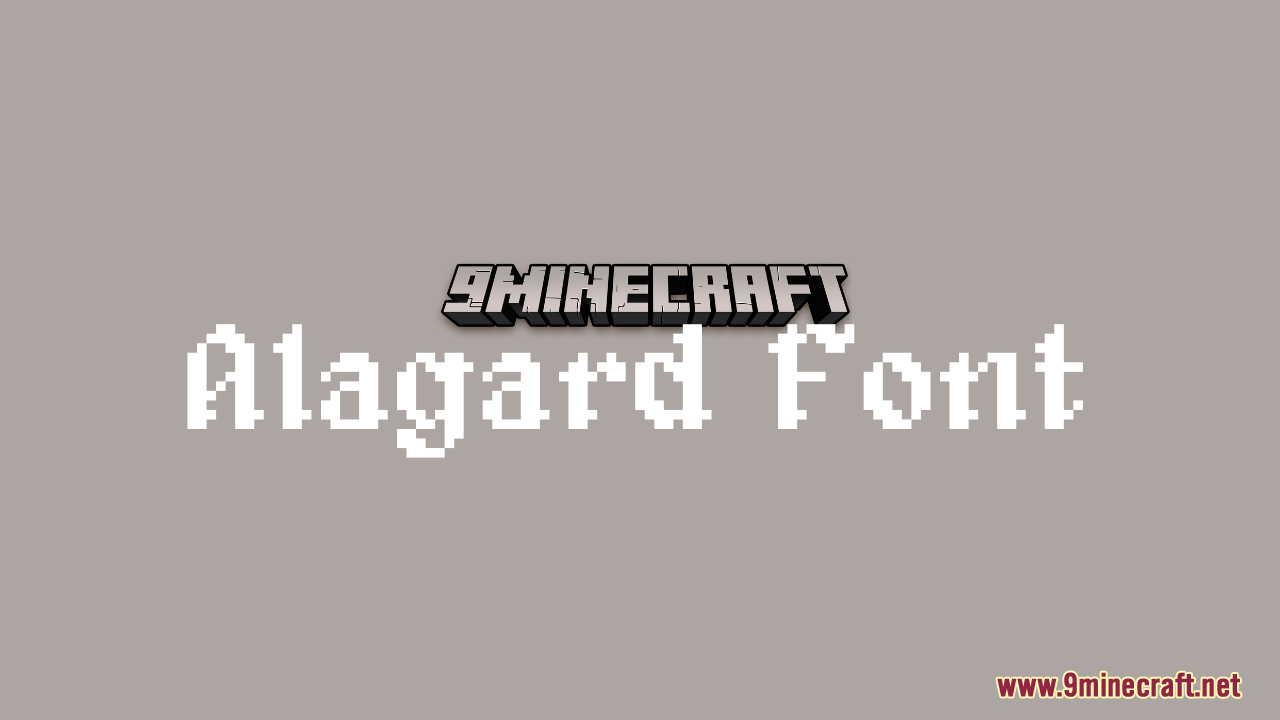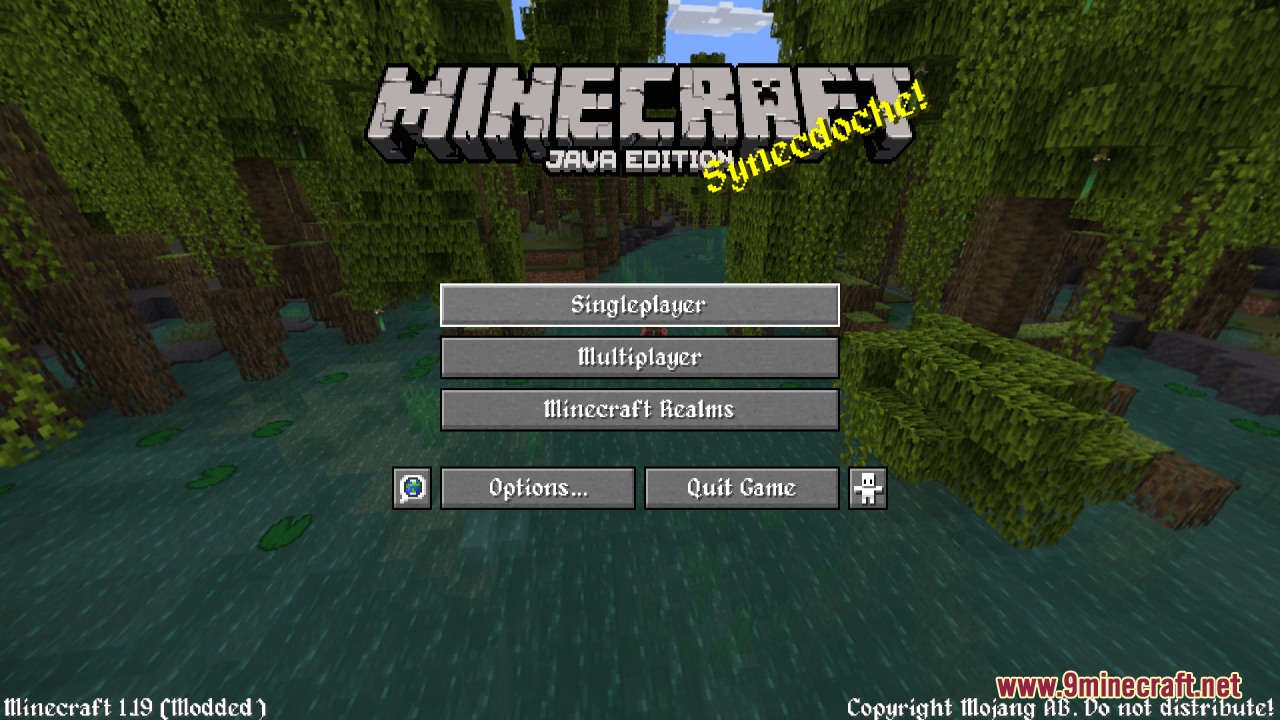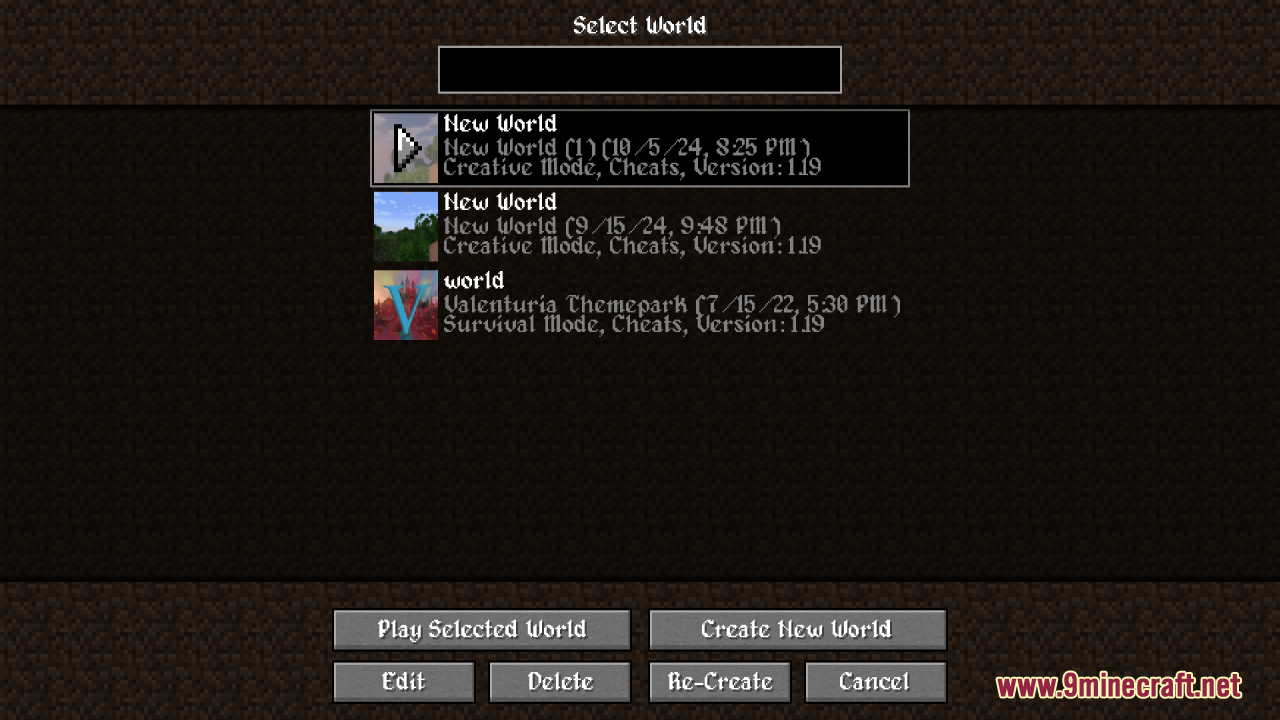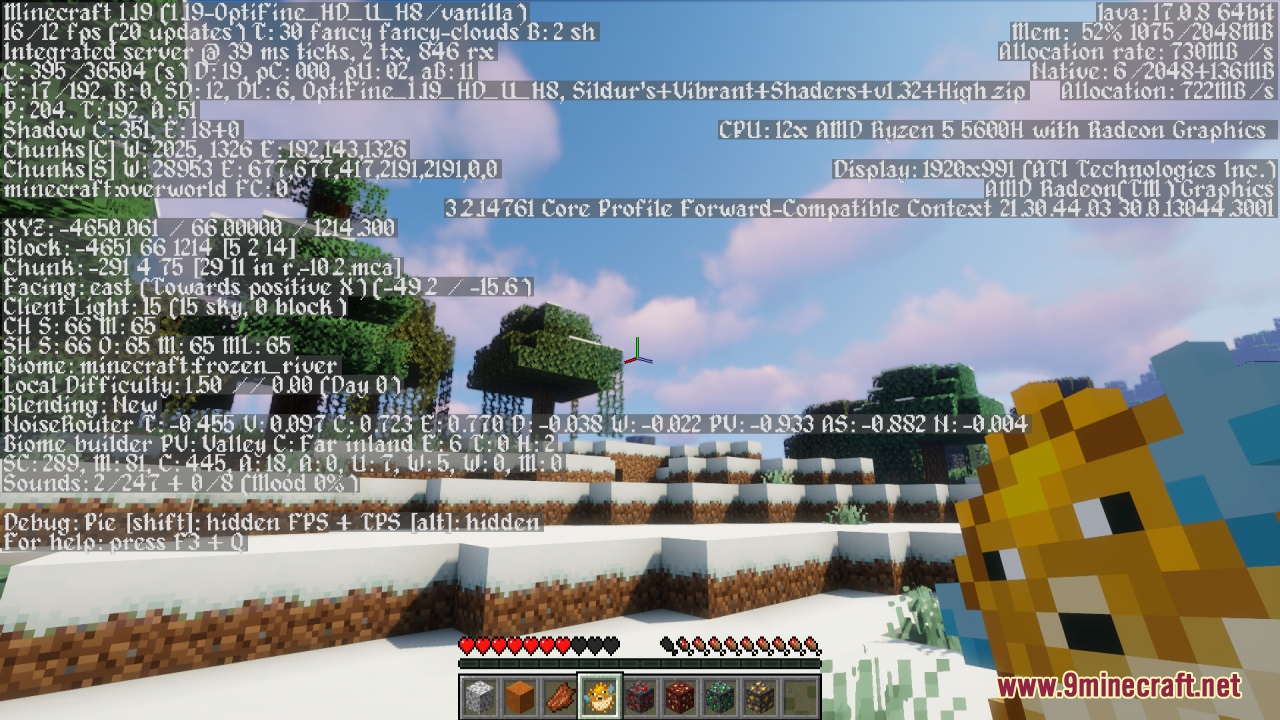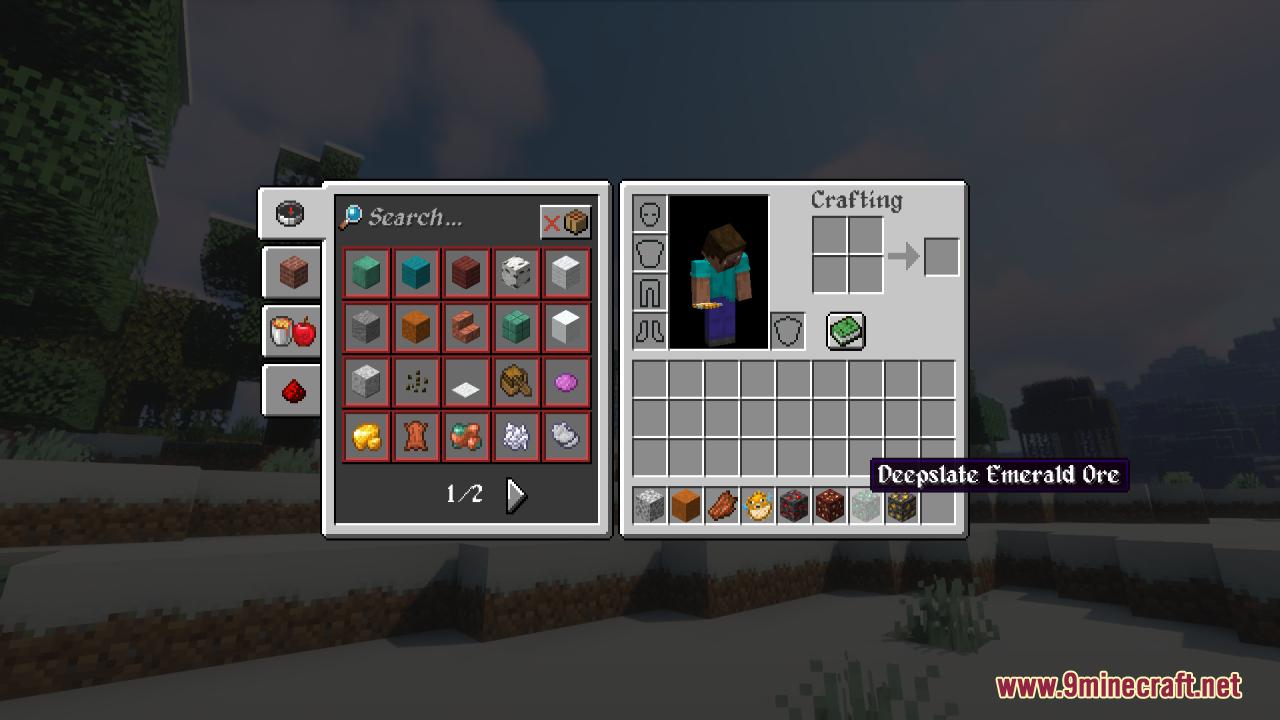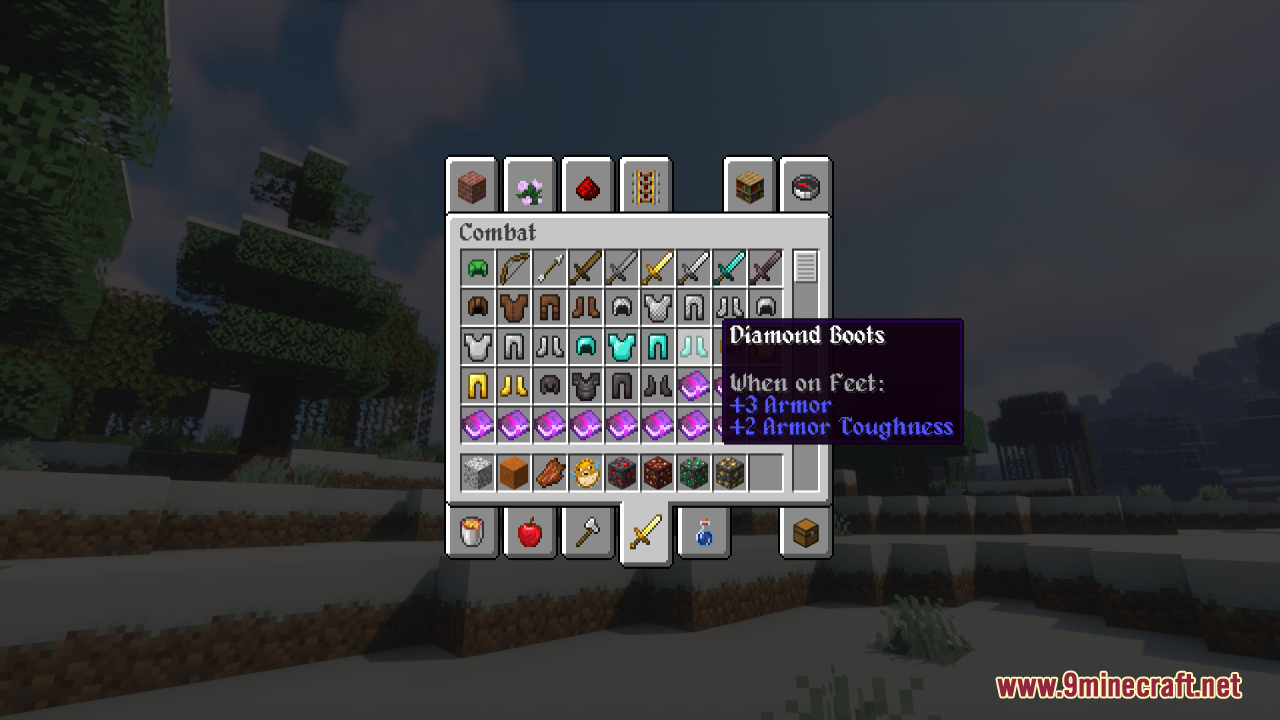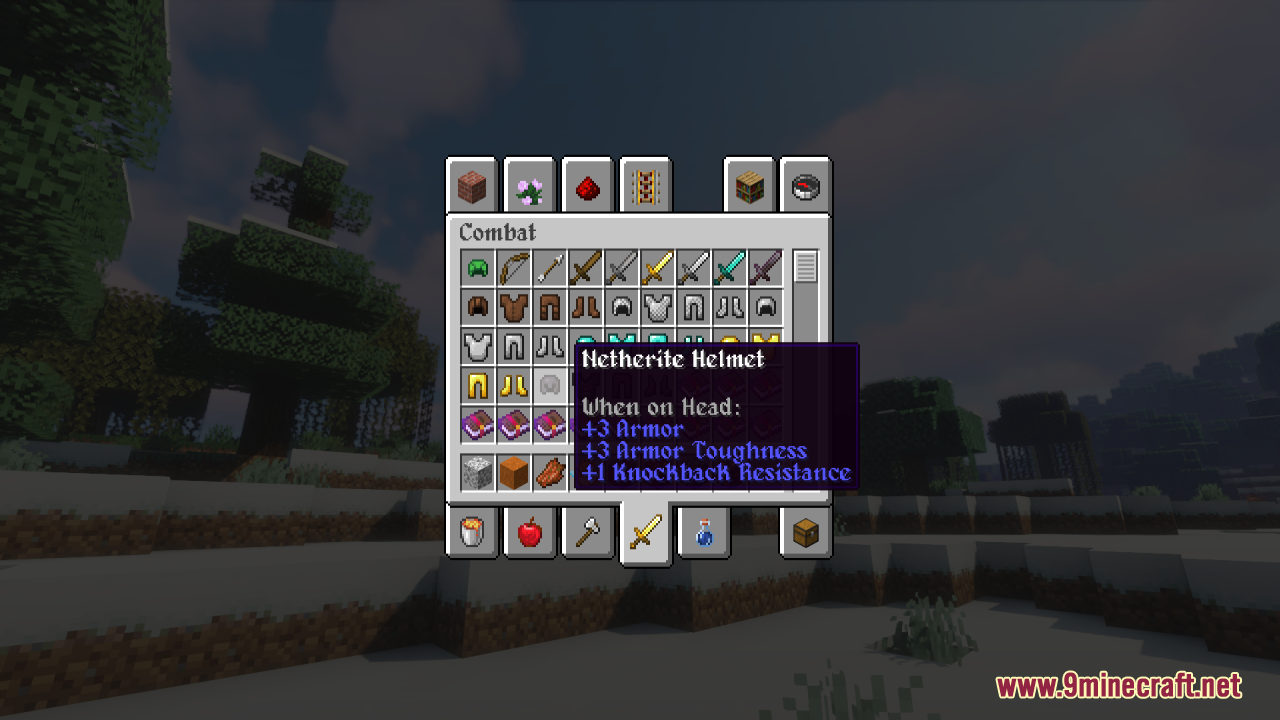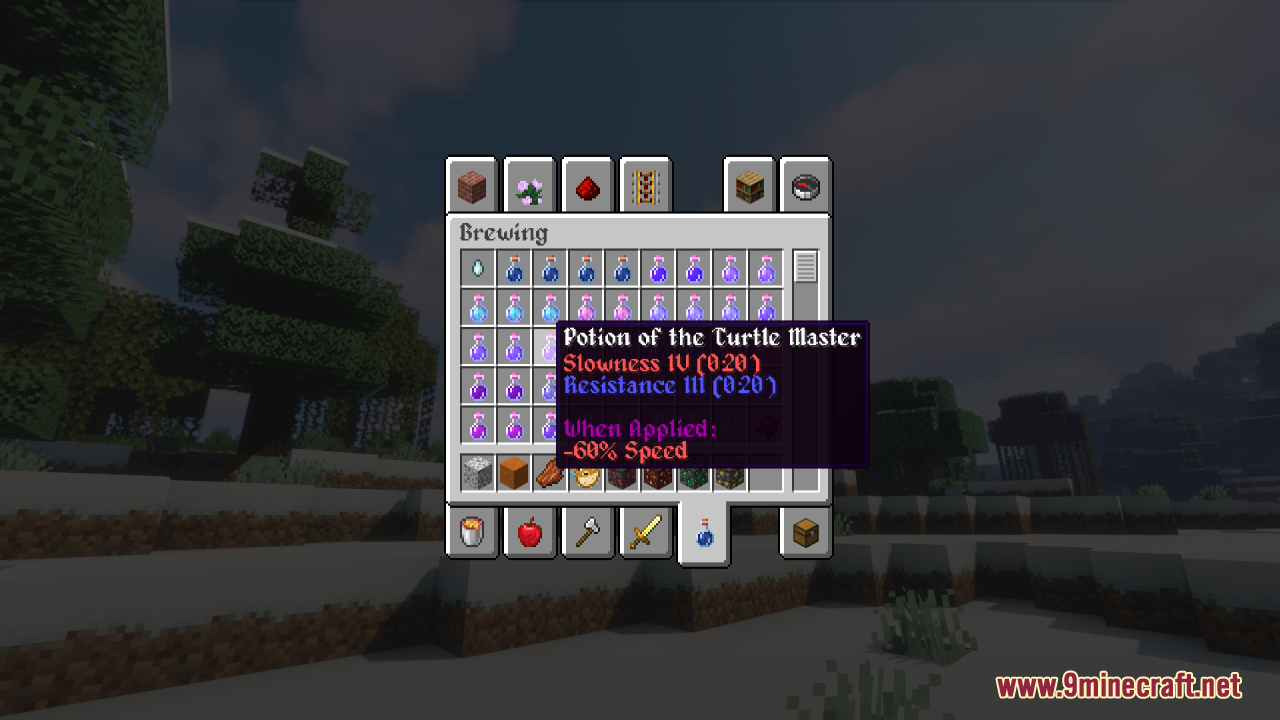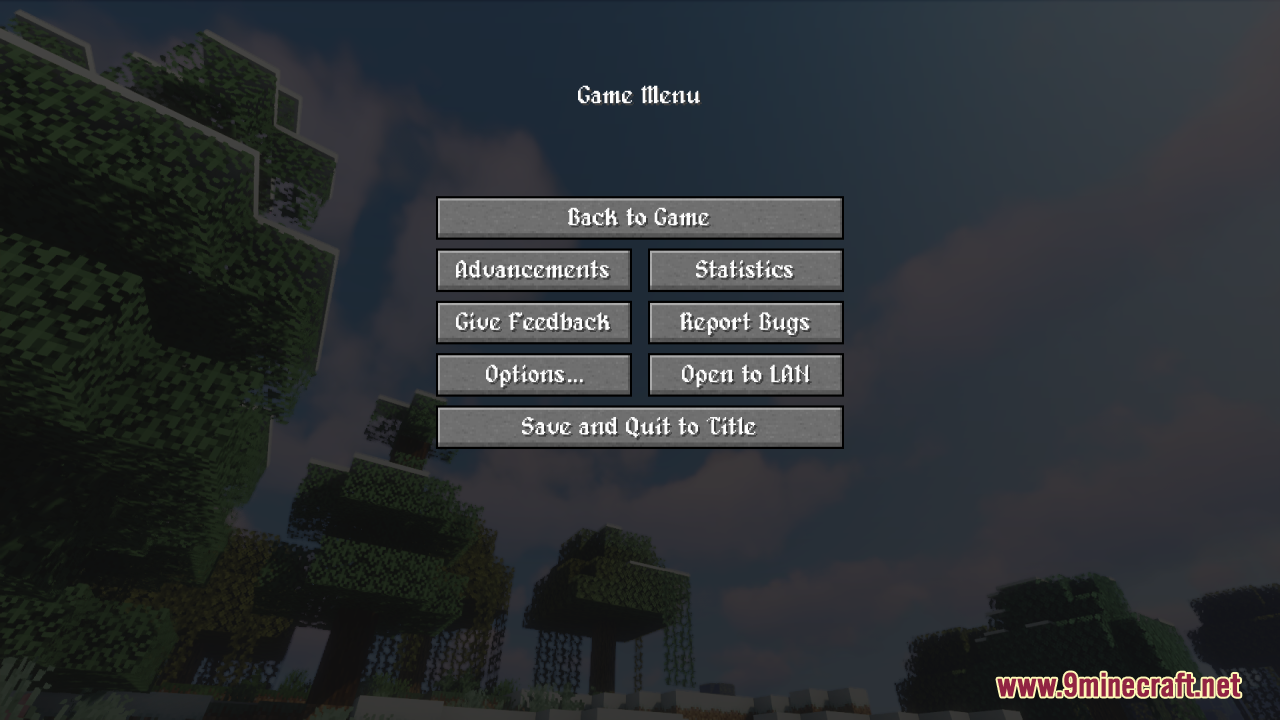
Alagard Font Resource Pack (1.20.1) – Texture Pack
Alagard Font Resource Pack replaces the default in-game font with the Alagard font. This font has a medieval-inspired design, giving the game a unique and immersive aesthetic. It’s perfect for players who enjoy a fantasy or historical theme in their Minecraft worlds. The pack is easy to install and works with various Minecraft versions.